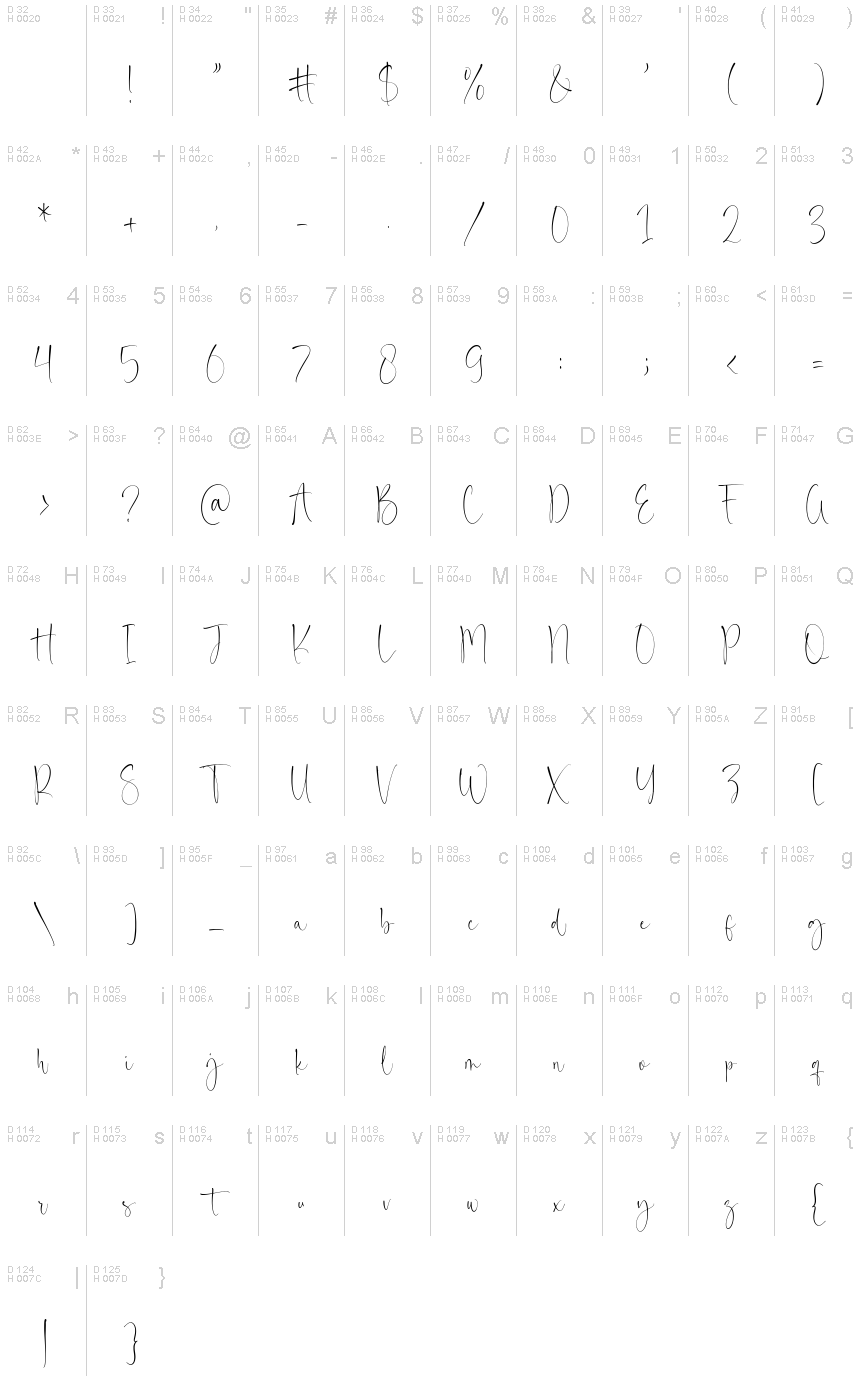
Royals Boutique
Royals Boutique font by Balpirick Studio brings elegant sophistication to your design. This light handwritten typeface has an artistic flair and whimsical touch that imitates signature writing. It’s characterized by its delicate structure and airy spacing of strokes for a truly classy type style.
A free font of this value shall not be neglected; use it in fashion branding projects, certain packaging designs, book covers, typography art, t-shirts and merchandise items, poster entries, product labels and printable gift cards.